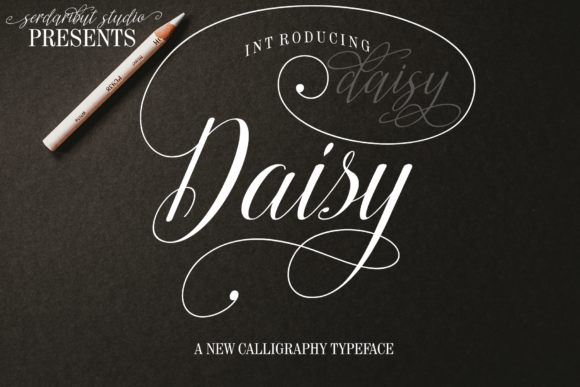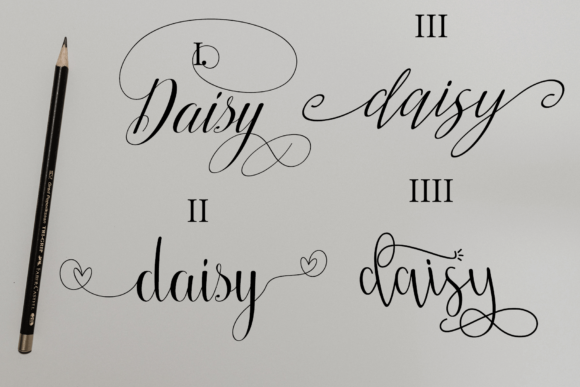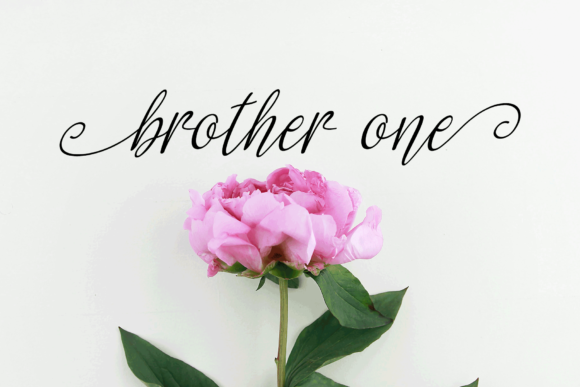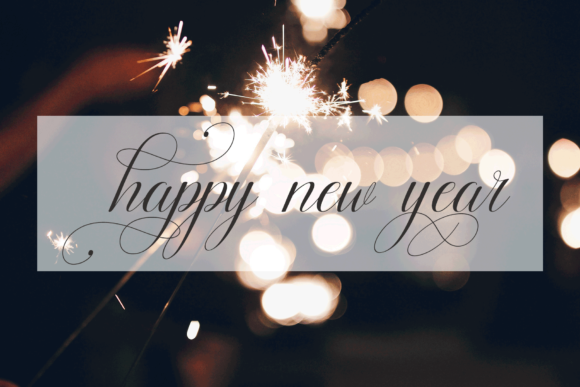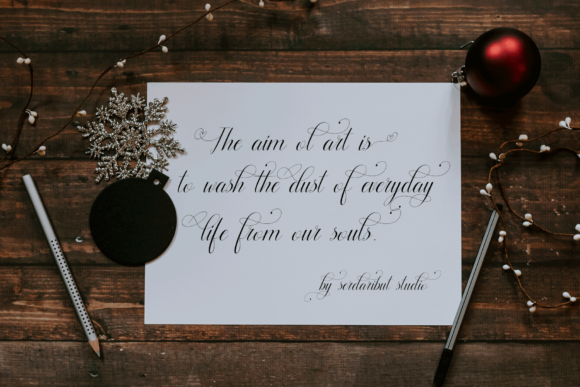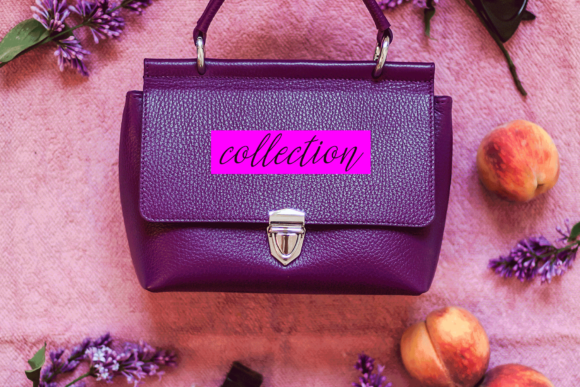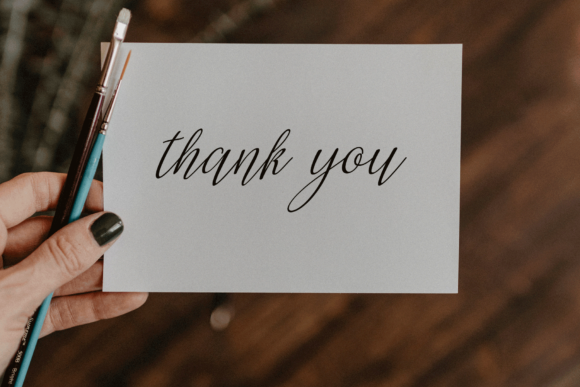
Unleash Your Creativity with the Elegant Daisy Font
Have you ever been stuck on a project, staring at a blank page, searching for the perfect words to bring your vision to life? That’s exactly when I fell in love with the Daisy Font. Its elegant and flowing handwritten style was the missing piece I needed to breathe new life into my design.
The Daisy Font is more than just a pretty face – it’s a versatile tool for designers looking to add a touch of sophistication and whimsy to their projects. With its PUA encoded features, you can easily access all of the glyphs and swashes, giving you endless possibilities to create unique and captivating designs.
Daisy Font Key Features
- Unique Characteristics: Daisy Font features a unique, hand-drawn design with subtle imperfections, giving it a warm and personal touch.
- Font Style: It is available in both Regular and Bold styles, allowing users to choose the perfect weight for their text.
- Font Size and Line Height: The font has a medium x-height and an average line height, making it suitable for body text and titles.
Daisy Font Review
Overall, I’m quite fond of the Daisy Font. ✨ It has a lovely, playful touch that can add a touch of whimsy to any design project. The font’s rounded edges and gentle curves give it a friendly, approachable feel that’s hard to resist.
Here are some of the things I think work well about the Daisy Font:
- ✨ High legibility: The font is easy to read, even at smaller sizes, making it perfect for body text.
- ✨ Versatility: The Daisy Font comes in a range of weights, from light to bold, allowing you to use it for a variety of design applications.
- ✨ Unique charm: The font’s quirky, hand-drawn feel adds a touch of personality to any design.
Of course, no font is perfect, and the Daisy Font has its limitations:
- ⚠️ Limited expressiveness: While the font is great for body text, it may not be the best choice for headlines or titles that need to make a strong impact.
- ⚠️ Potential for overuse: The Daisy Font’s playful feel can be overwhelming if used too extensively in a design.
Overall, I think the Daisy Font is a great addition to any designer’s toolkit. It’s a fun, versatile font that can add a touch of personality to a wide range of design projects.
Daisy Font is ideal for:
- Home decor and craft projects
Alternatives to Daisy Font
Great Vibes is a beautiful, elegant script font that is perfect for designs that need a touch of sophistication. It’s great for wedding invitations, luxury branding, and high-end packaging. Great Vibes is more ornate than Daisy Font, with flourishes and swashes that add to its charm.
Carolyna Pro is a modern script font that is perfect for designs that need a balance of elegance and playfulness. It’s great for fashion branding, beauty packaging, and lifestyle magazines. Carolyna Pro is more geometric than Daisy Font, with clean lines and a more contemporary feel.
Playfair Display is a luxurious serif font that is perfect for designs that need a touch of classic sophistication. It’s great for high-end branding, luxury packaging, and special occasion invitations. Playfair Display is more formal than Daisy Font, with intricate details and a more traditional feel.